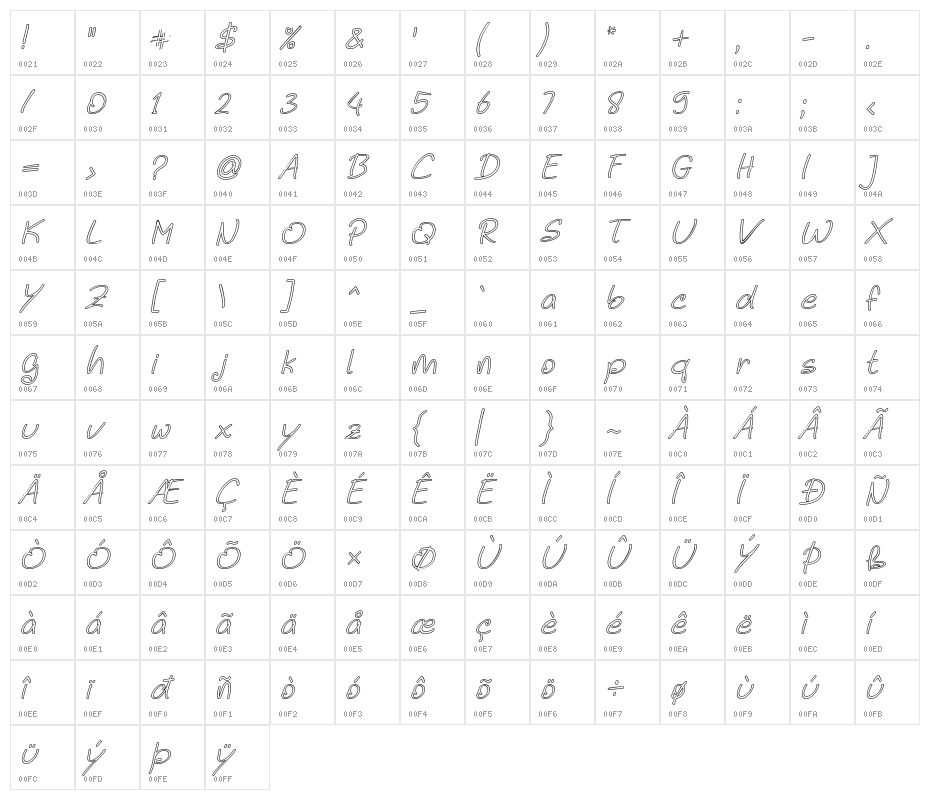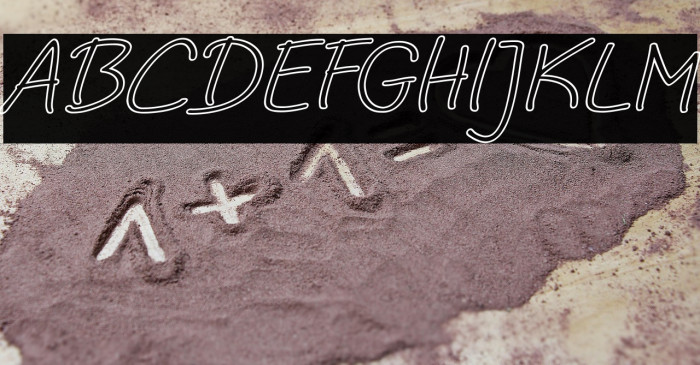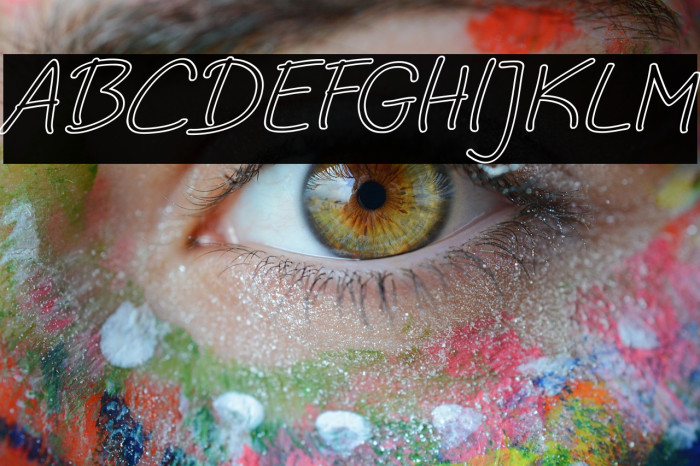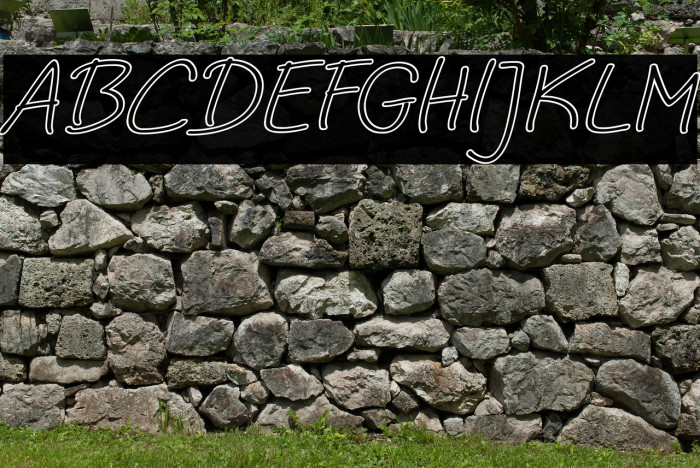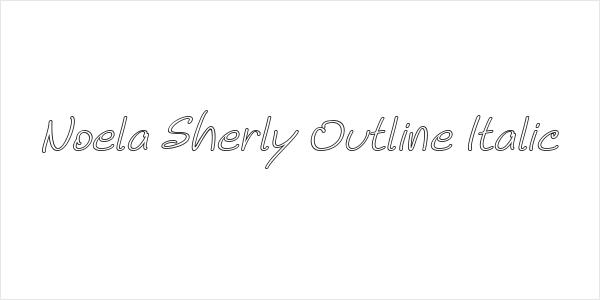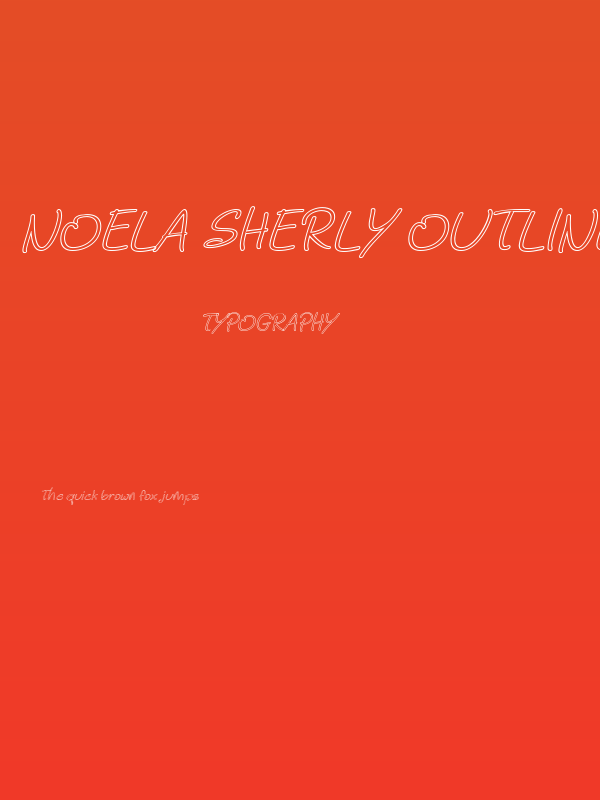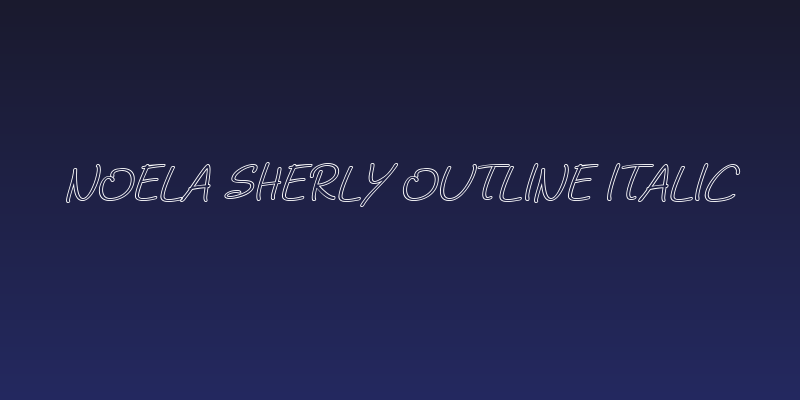
Noela Sherly Outline Italic Font
Noela Sherly Outline Italic Description
This font features a playful and dynamic outline style that gives it a lively and energetic appearance. The letters are italicized, adding a sense of motion and fluidity. The strokes are consistent in width, creating a uniform look across all characters. The uppercase and lowercase letters maintain a harmonious balance, with rounded edges that soften the overall aesthetic. The numerals and special characters are designed to match the whimsical style, making them suitable for creative and informal applications. The font's outline nature allows for versatility in design, as it can be filled with colors or textures to enhance its visual impact.
| Overall Style | Playful, Energetic |
| Use Case | Headlines, Logos, Creative Projects |
| Proposed Projects | Ideal for children's book covers, playful branding, greeting cards, and creative posters. |